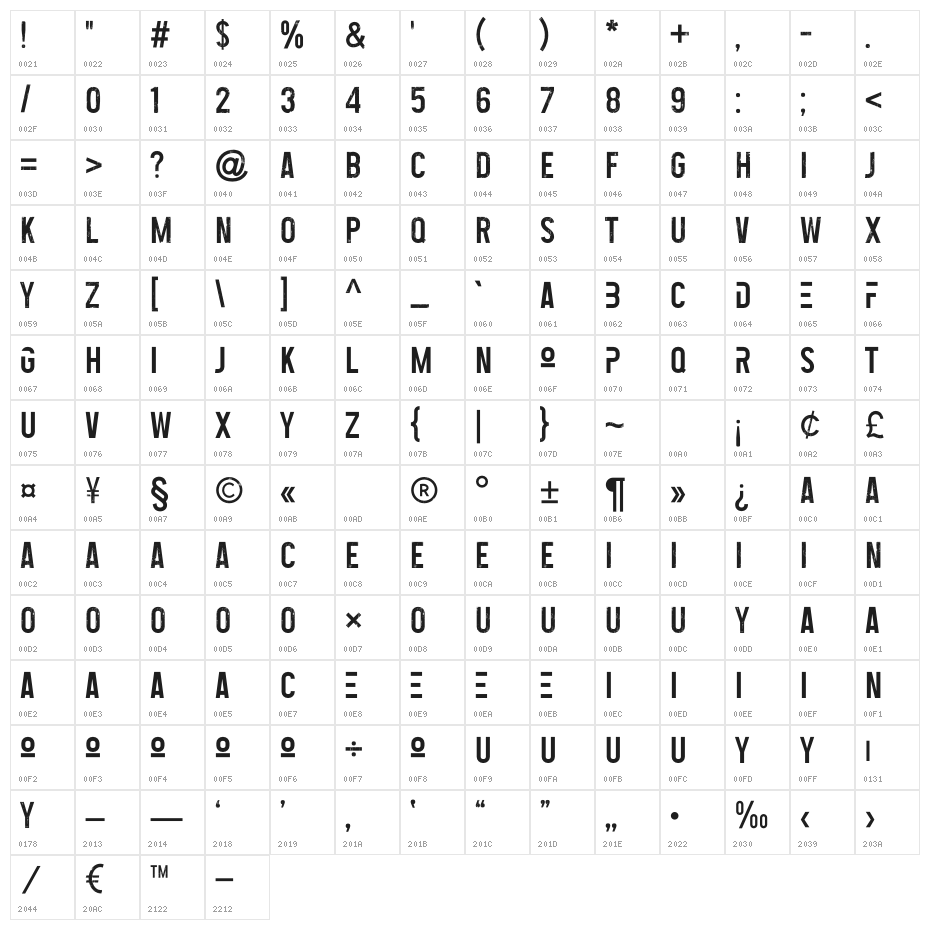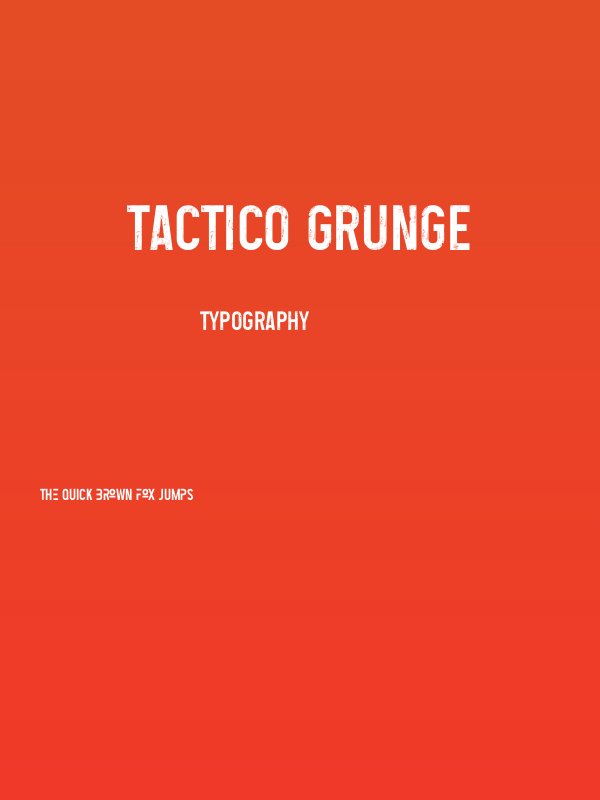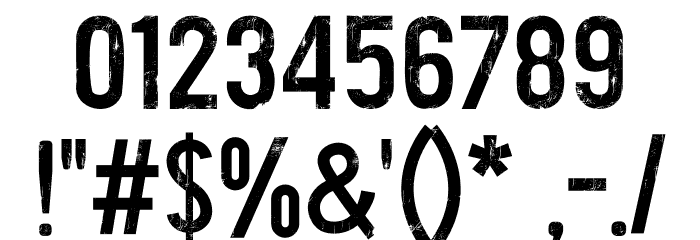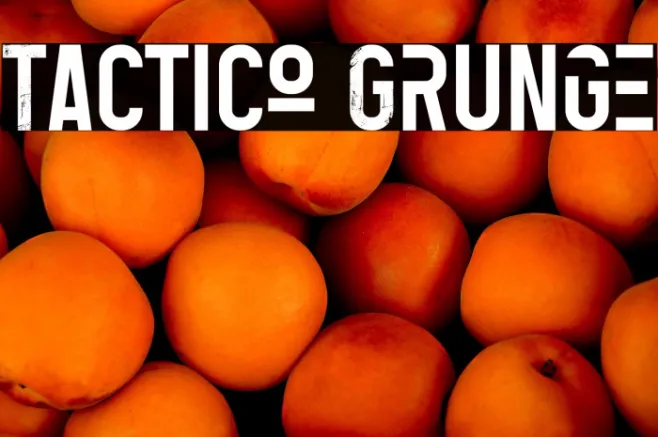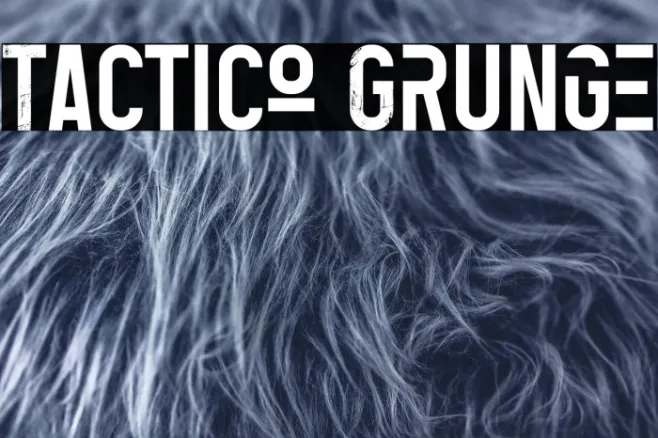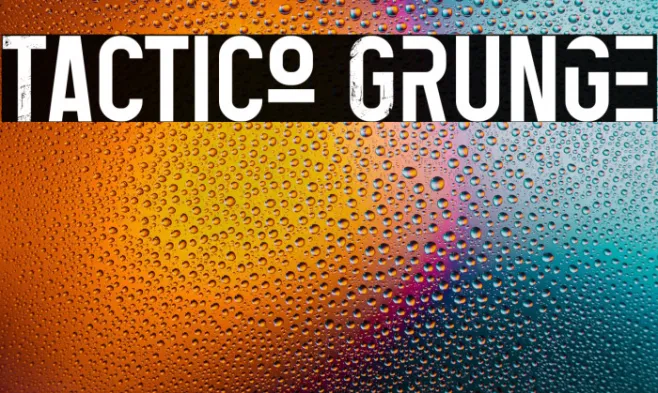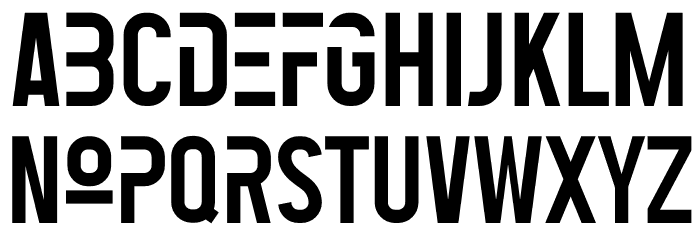
Tactico Grunge Font
Tactico Grunge Description
This font features a bold, distressed style that gives it a rugged, grunge appearance. The uppercase letters are prominent with a textured effect that suggests wear and tear, adding a vintage and edgy feel. The numerals and special characters follow the same aesthetic, maintaining consistency across the typeface. The font's design is ideal for projects that require a strong, impactful look, such as posters, album covers, or branding that aims to convey a sense of toughness or rebellion.
| Overall Style | Grunge, Vintage, Edgy |
| Proposed Projects | Ideal for posters, album covers, branding, and any design needing a strong, edgy look. |